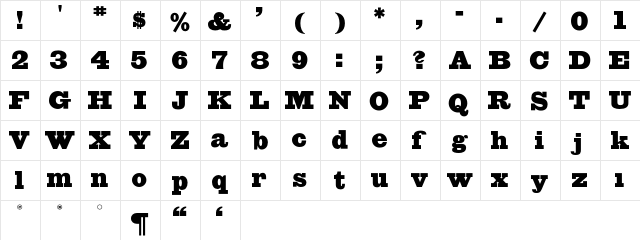
EgizianoClassic BlackTextOL
Design Context for EgizianoClassic Typeface
EgizianoClassic wears its vintage influences proudly, with letterforms that recall mid-century signage, classic packaging, and nostalgia-driven design.
Perfect for vintage-inspired branding, retro packaging, nostalgia campaigns, and period-accurate editorial design.
Font Pairing: Combine EgizianoClassic with a simple slab or neutral sans — period-accurate companions reinforce the vintage feel without competing for attention.
Pro Tip: Use EgizianoClassic for headlines and pull quotes rather than body copy — its personality is best appreciated in short, focused bursts.